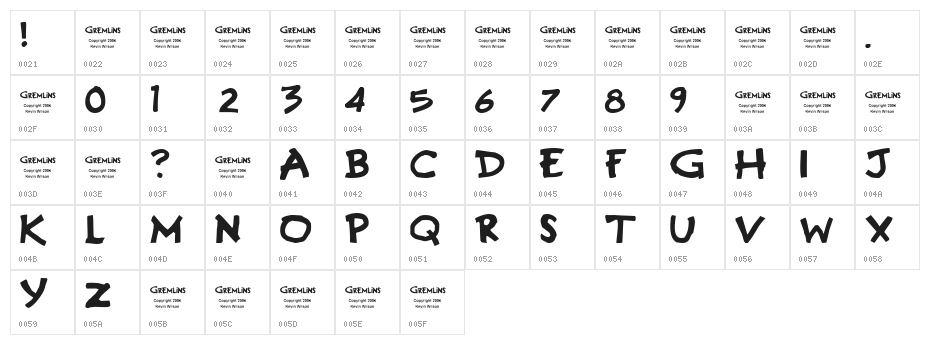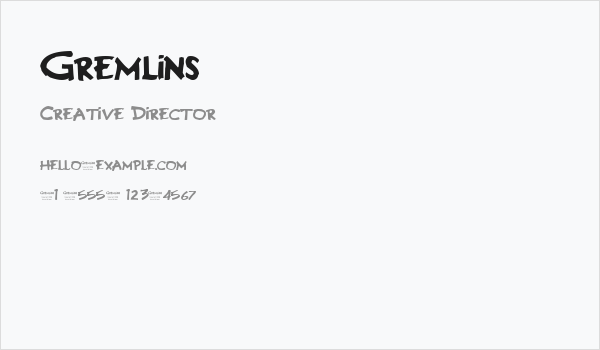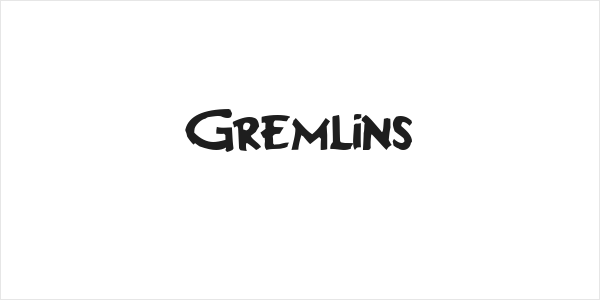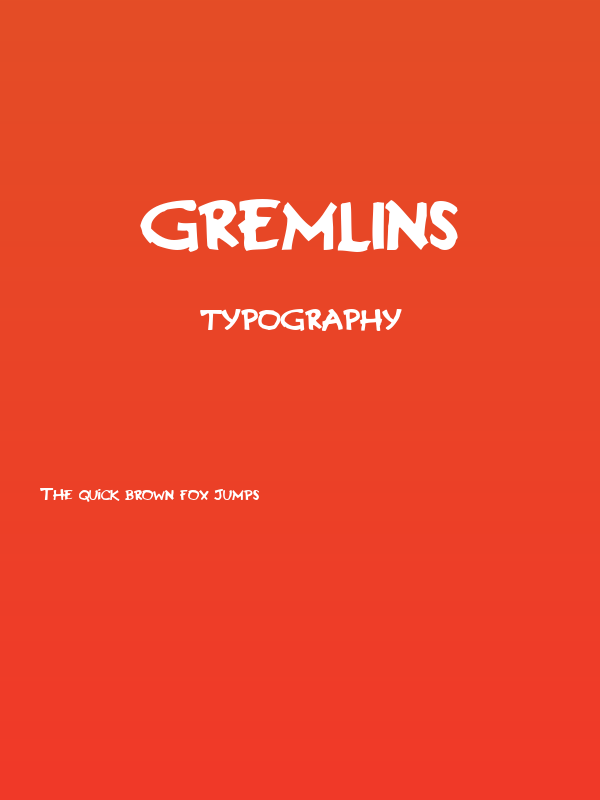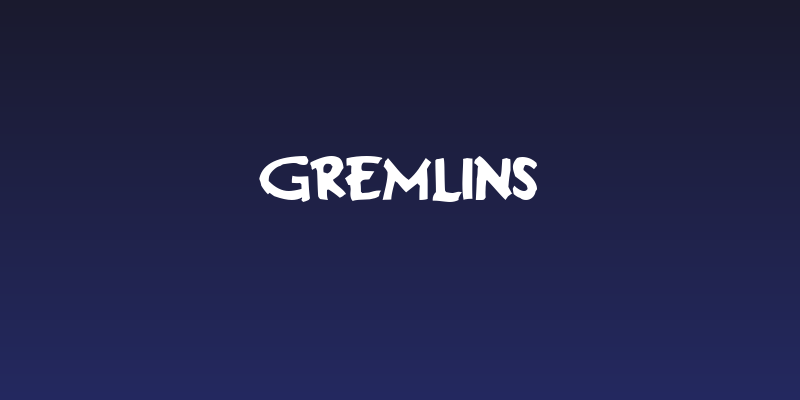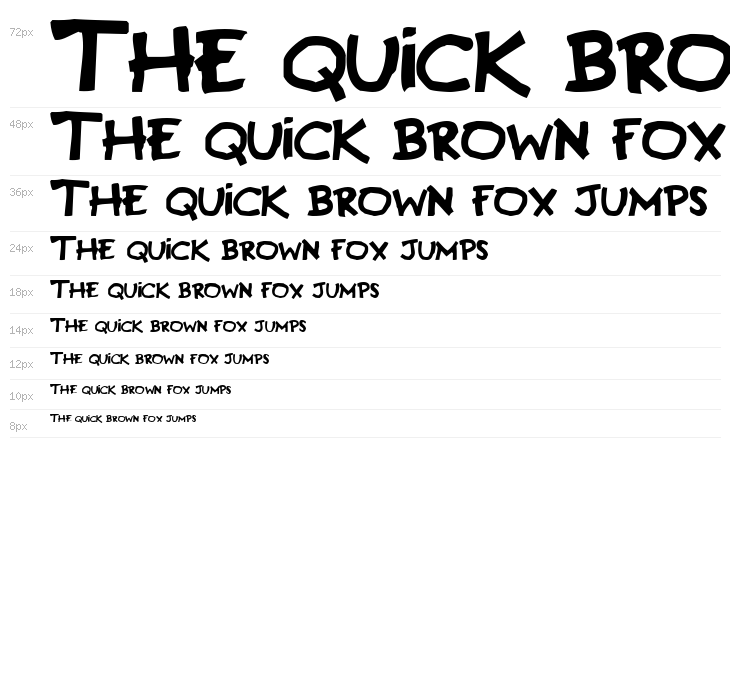
Gremlins Font
Gremlins Description
This font features a playful and quirky design, characterized by its uneven and irregular strokes that give it a hand-drawn appearance. The letters are bold and slightly slanted, adding a dynamic and energetic feel. The uppercase and lowercase letters maintain a consistent style, with exaggerated curves and angles that enhance its whimsical nature. The numbers follow the same playful theme, making them stand out with their unique shapes. This font is ideal for projects that require a fun and informal touch, such as children's books, posters, or creative branding.